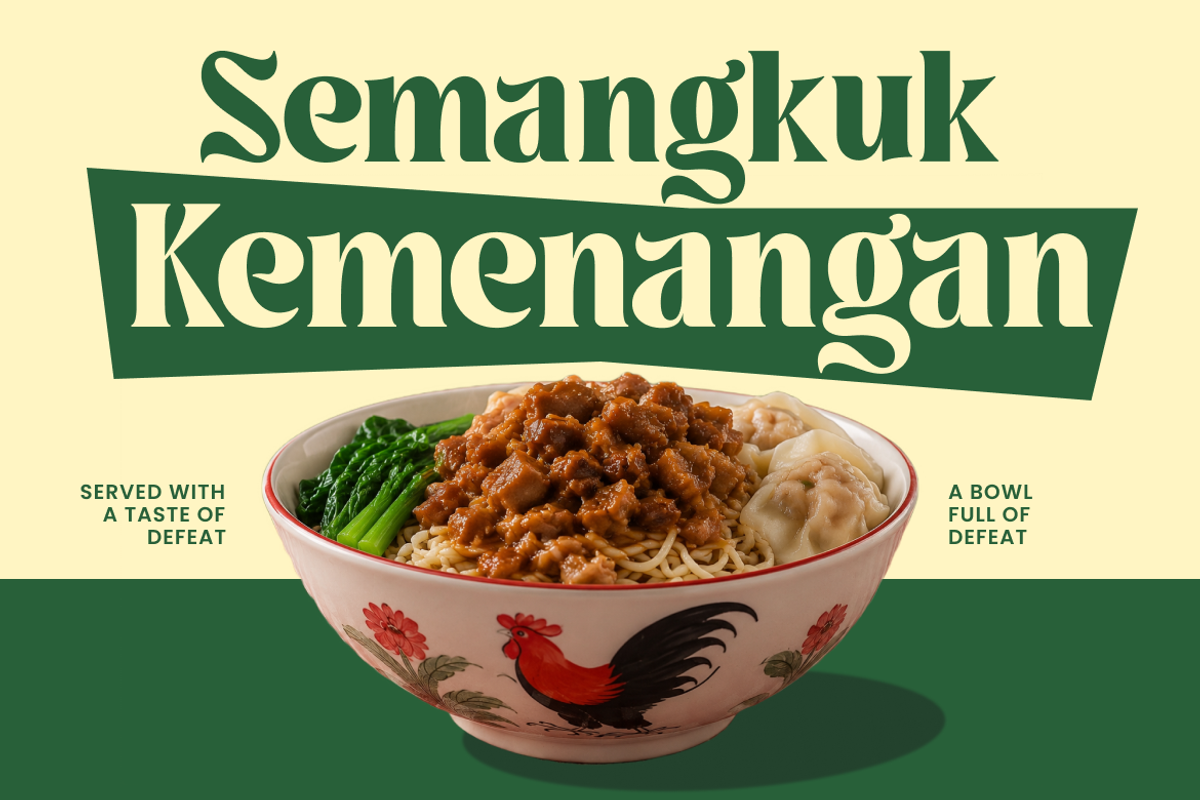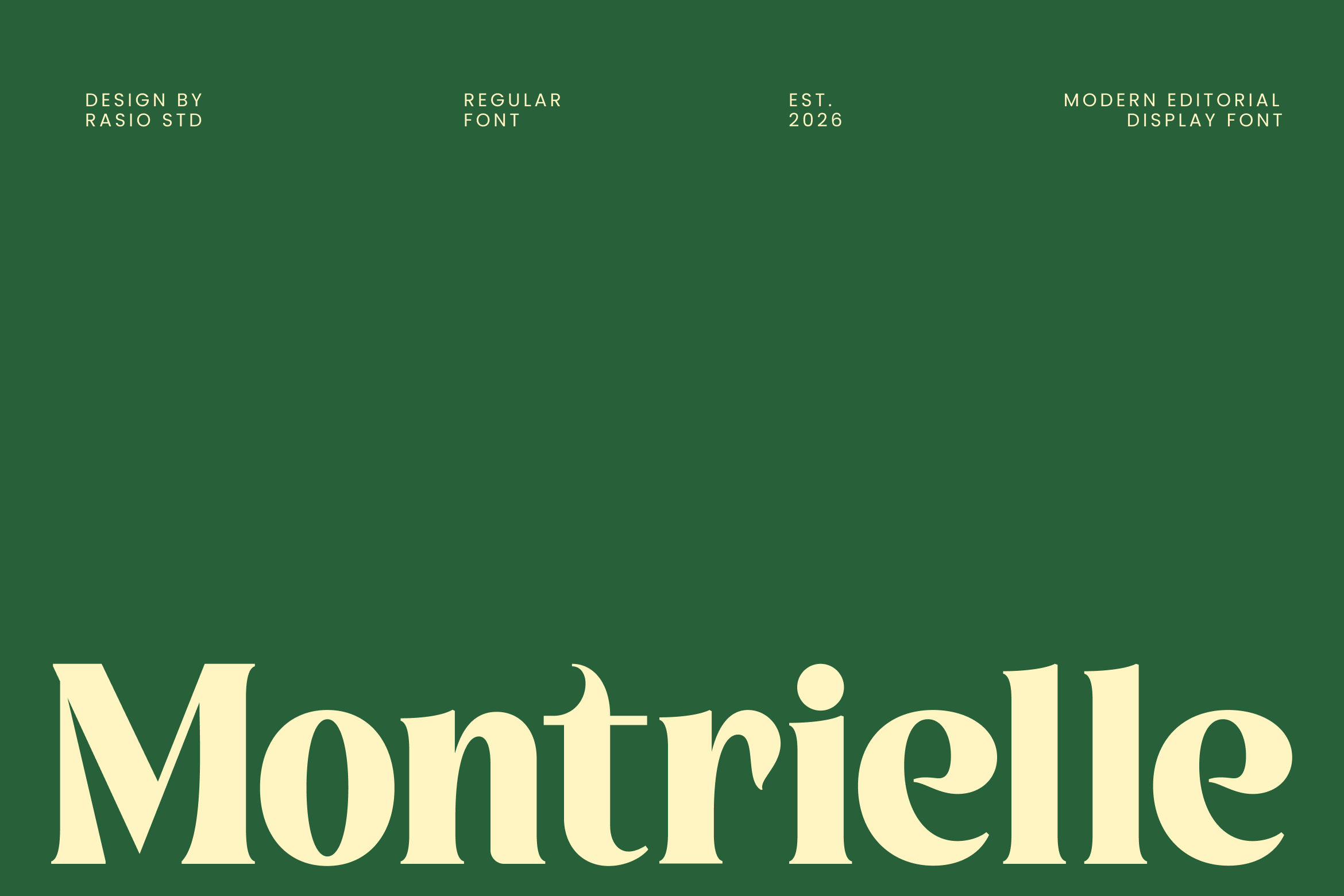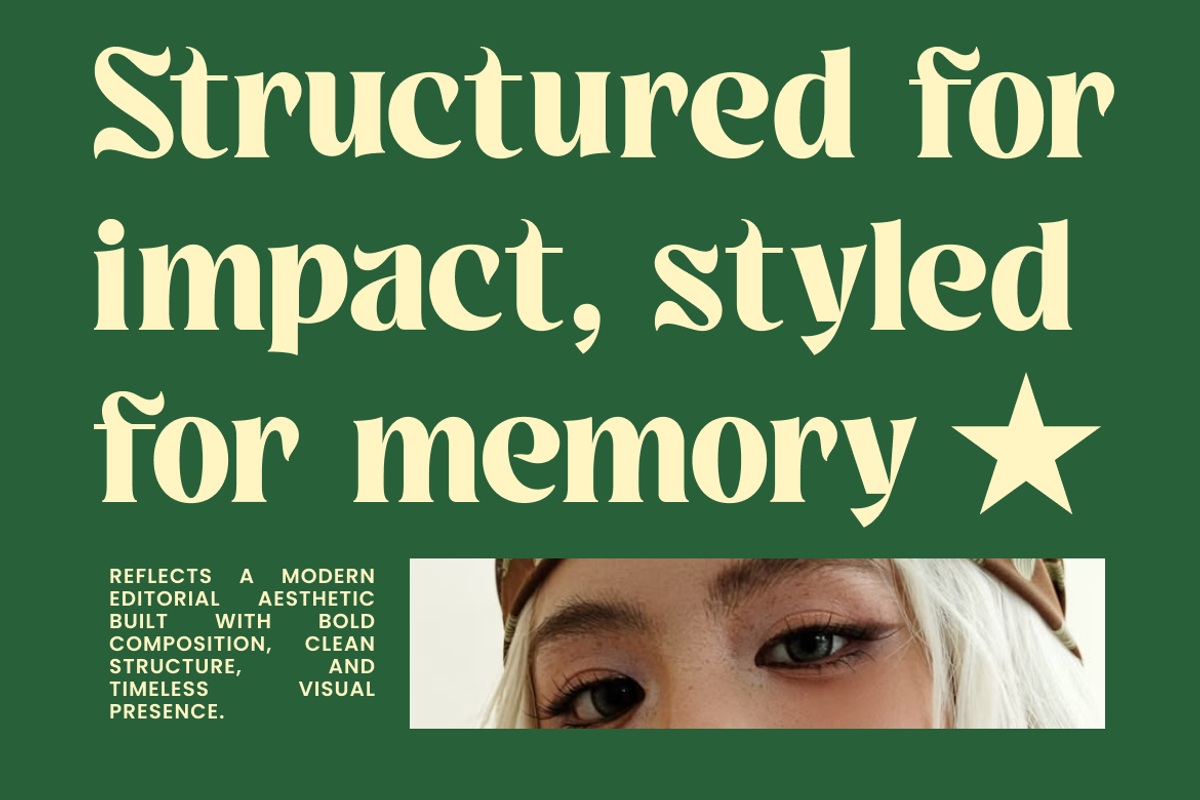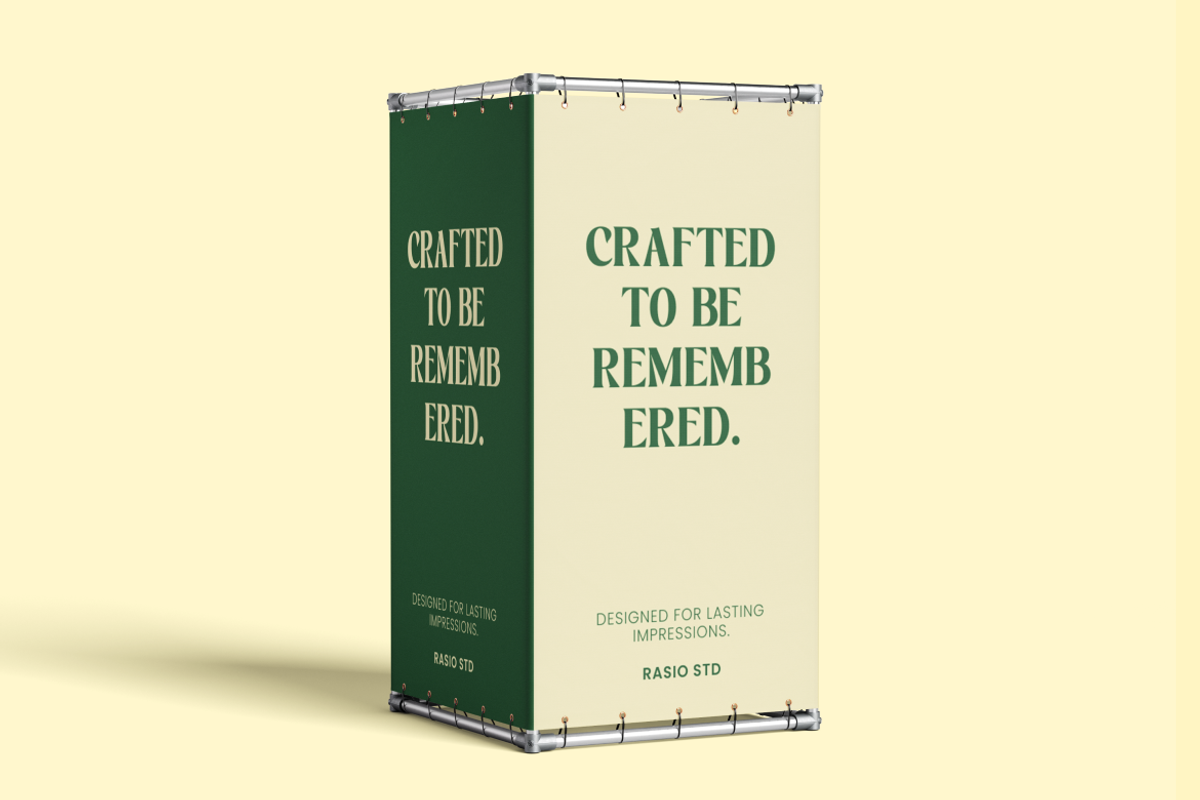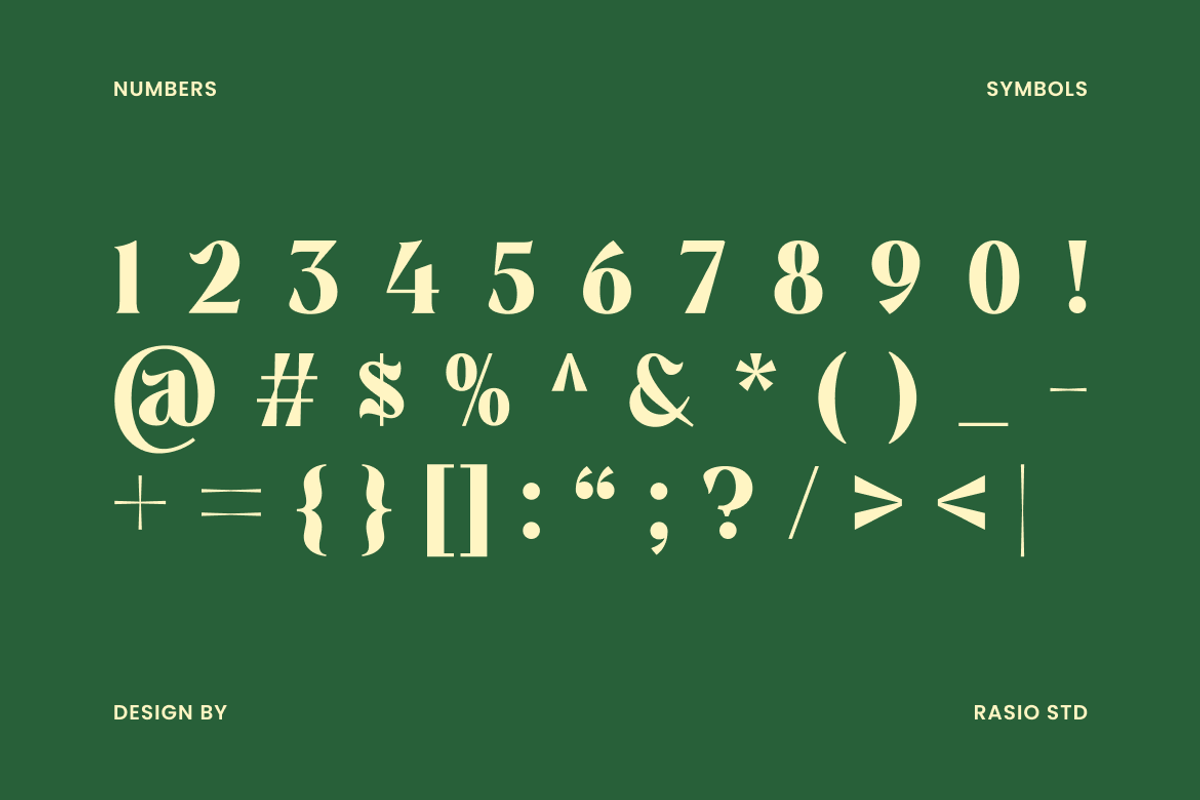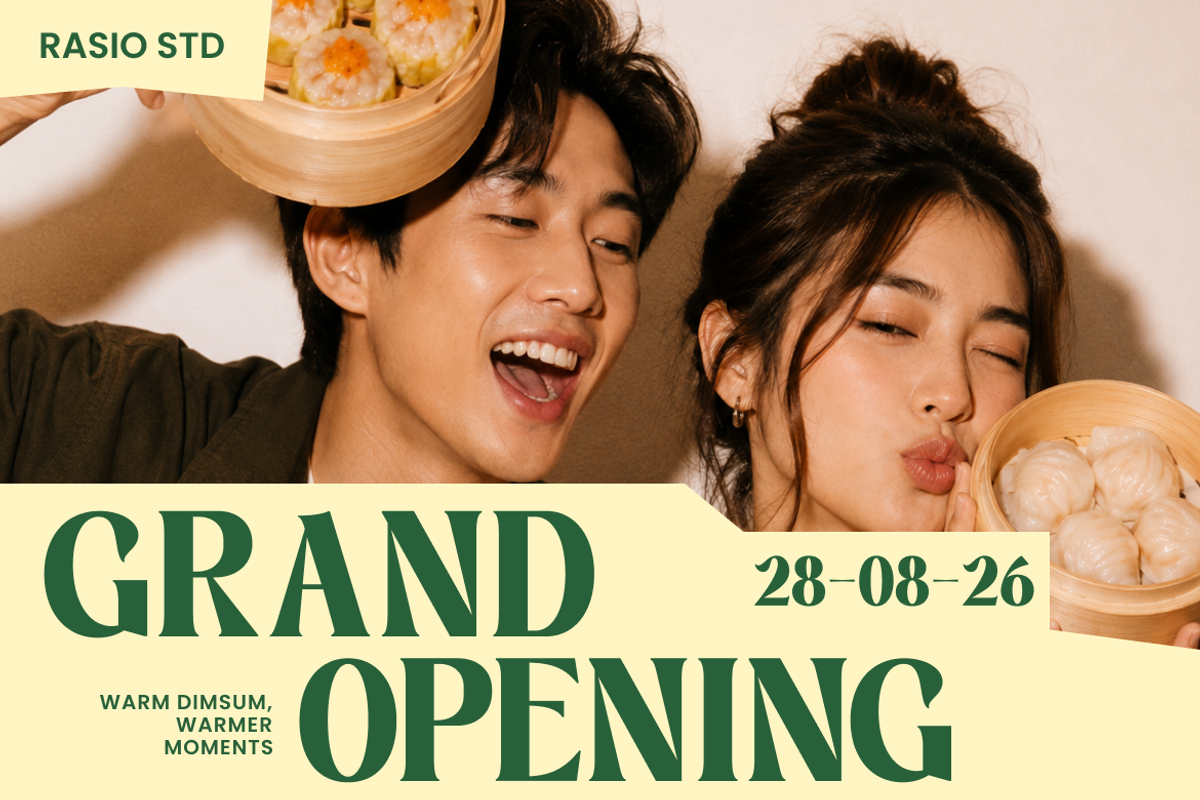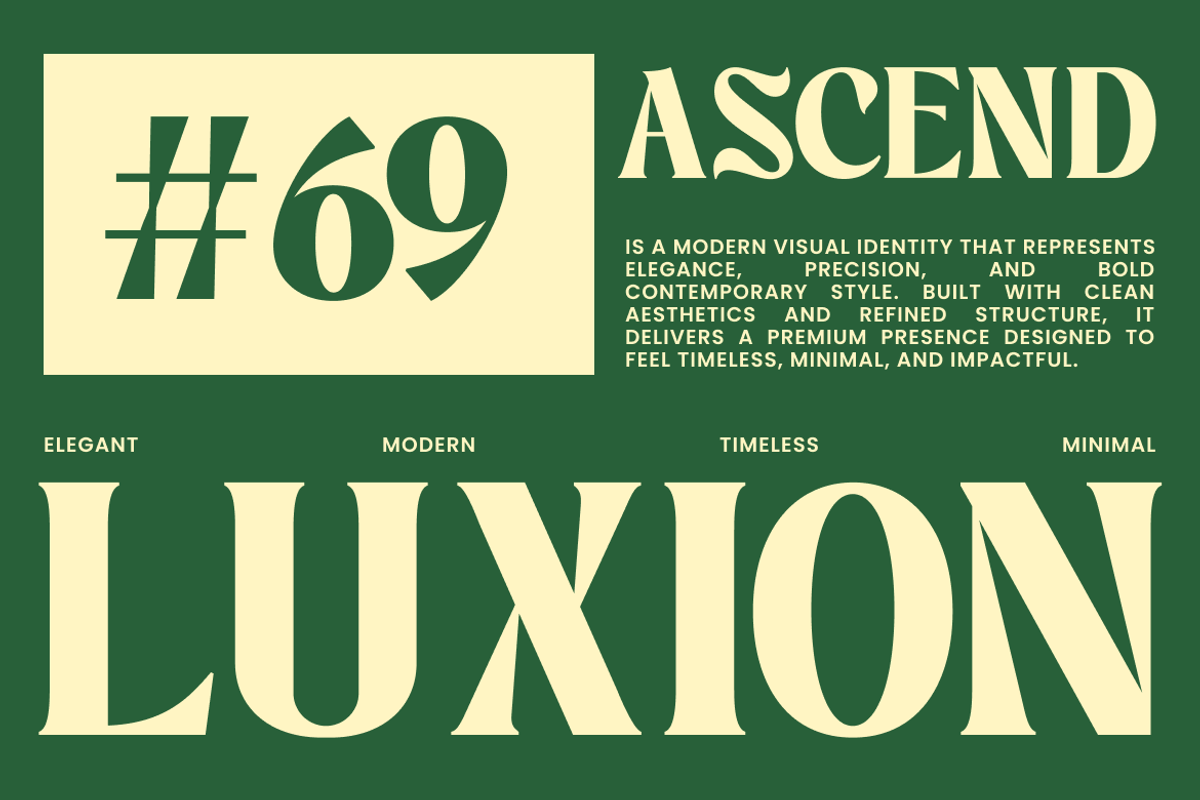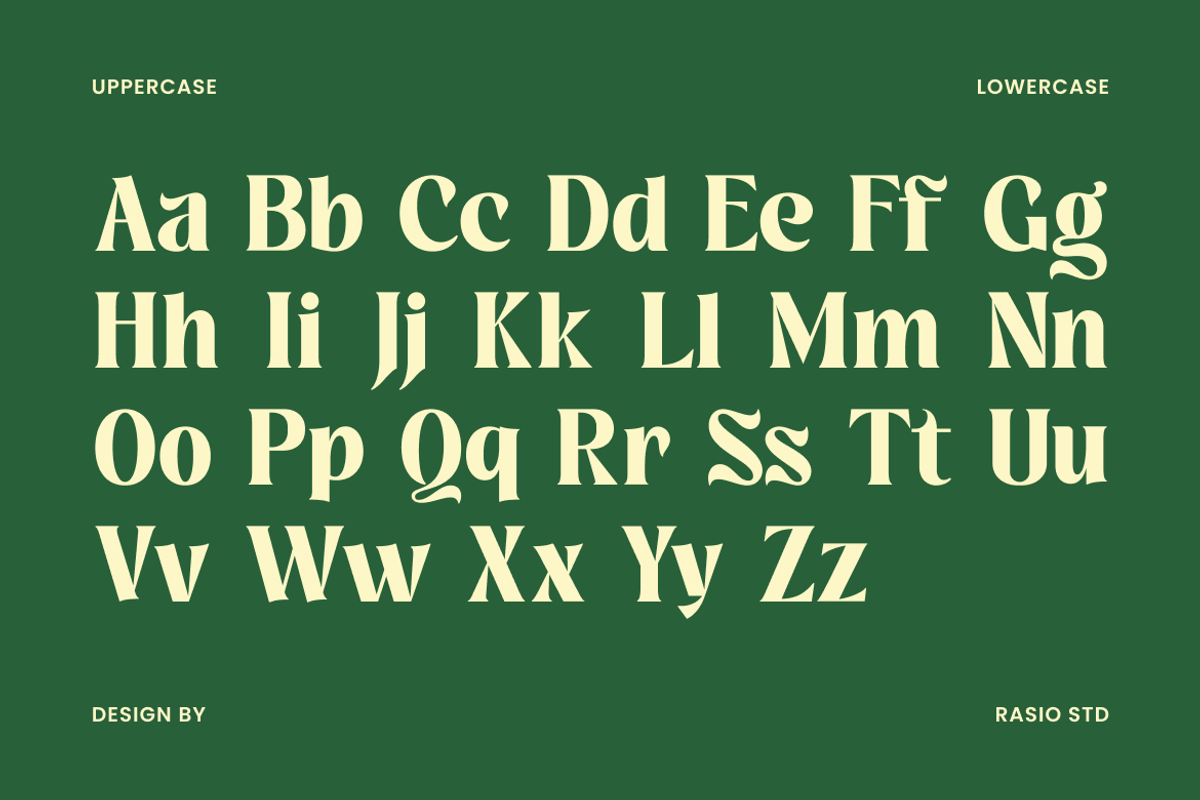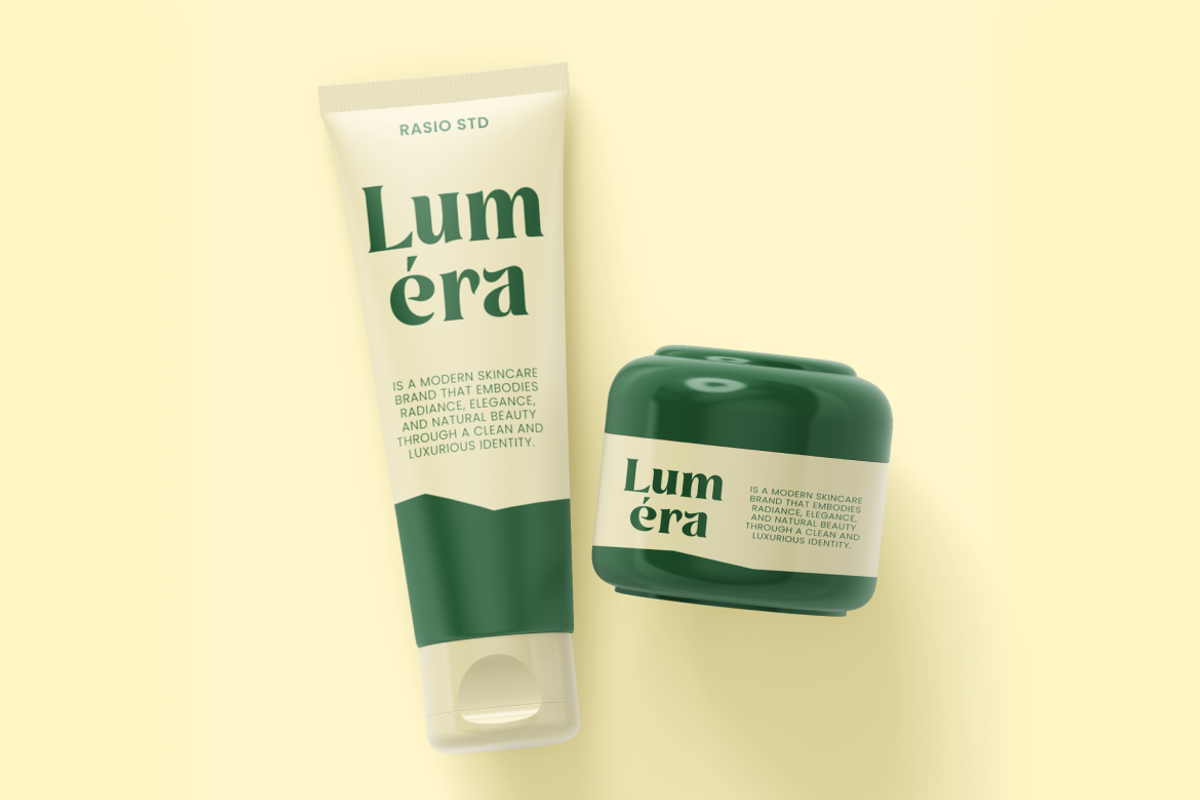
Montrielle Modern Editorial Font
Montrielle Modern Editorial Display is a distinctive serif typeface that blends contemporary editorial styling with expressive character details. The font features high-contrast strokes, sculpted curves, and decorative terminals that introduce movement and personality to every letterform. Its carefully crafted structure combines classic serif foundations with artistic flourishes, creating a sophisticated display typeface that feels both refined and visually engaging. The unique shapes and ornamental accents give words a memorable presence while maintaining balance and readability in large-format typography.
Created for statement-making compositions, Montrielle excels in headlines, branding, editorial design, and premium visual storytelling. The expressive character forms add individuality to logos, wordmarks, packaging, and promotional materials, helping designs stand out with a distinctive typographic voice. Its decorative details bring depth to magazine covers, book titles, invitations, product presentations, and social media graphics, while the overall structure remains versatile enough for modern branding systems and creative marketing projects.
High-contrast serif construction with pronounced thick and thin stroke transitions
Distinctive flared terminals that add movement and decorative character
Editorial-inspired letterforms designed to create strong visual impact
Soft curved details balanced with sharp serif accents for refined contrast
Expressive character shapes that enhance personality without sacrificing readability
Editorial magazines, cover designs,feature headlines requiring strong visual character
Fashion branding and boutique identity systems with a distinctive typographic voice
Beauty, fragrance, and cosmetic packaging designed to capture attention
Logo design, wordmarks, and monograms enhanced by decorative serif details
Wedding stationery, invitations, and event branding with artistic appeal
Supports numerals, punctuation, and extensive symbol set
Turn typography into a visual statement with Montrielle